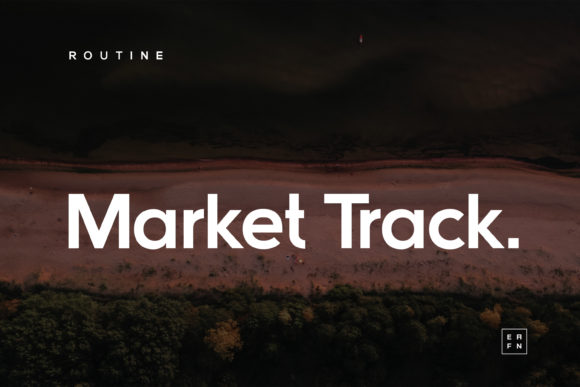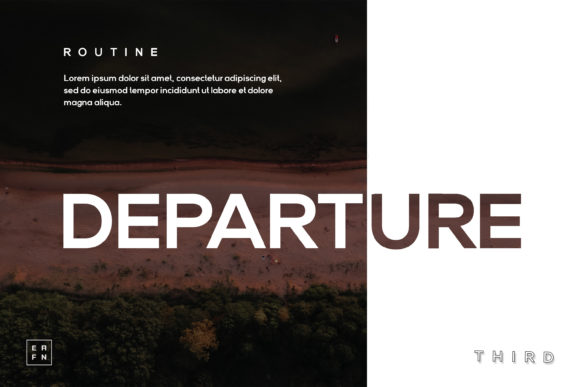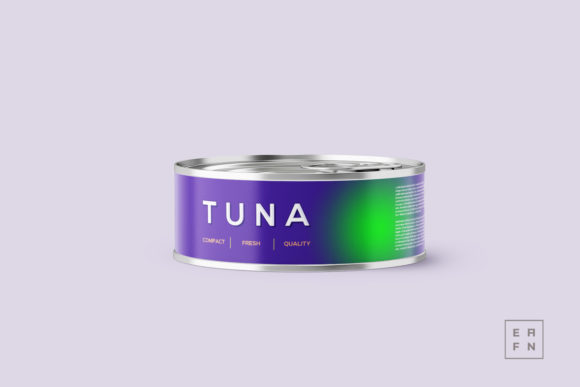
Introduction to Routine Font
Routine is a simple and elegant sans serif font.
Fall in love with its incredibly versatile style and use it to create spectacular designs .
Key Features of Routine Font
Why Choose Routine Font?
Routine Font offers exceptional quality and versatility, making it a valuable addition to your design toolkit. Whether you’re creating for personal projects or commercial use, Routine Font delivers professional results.